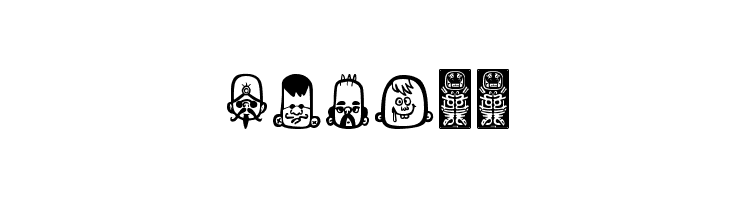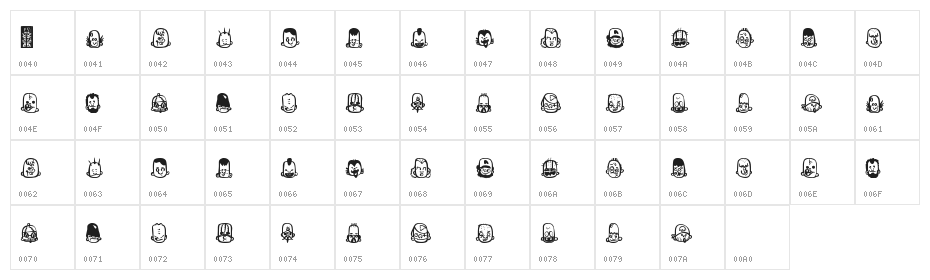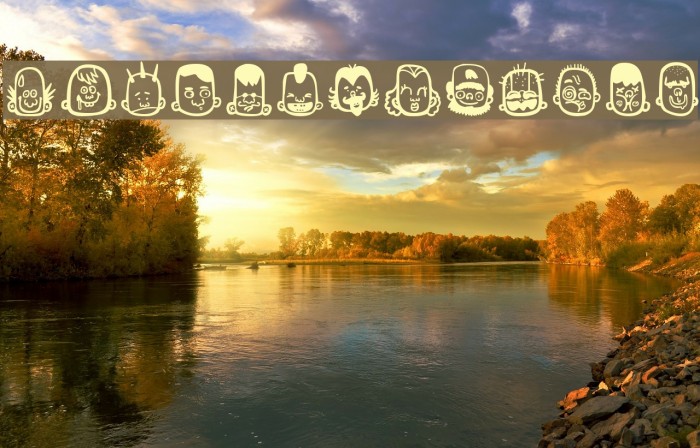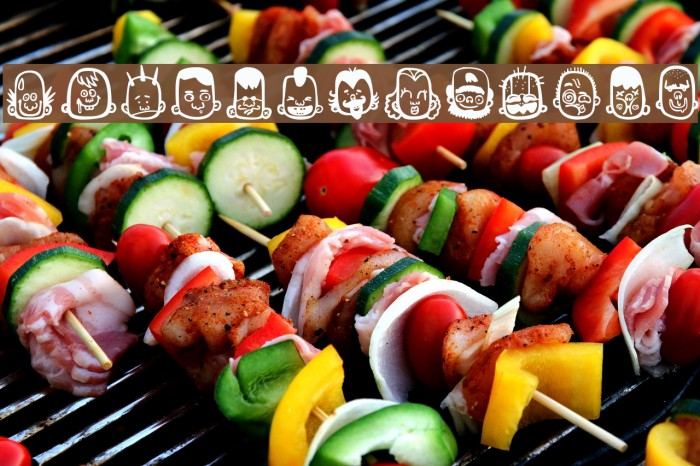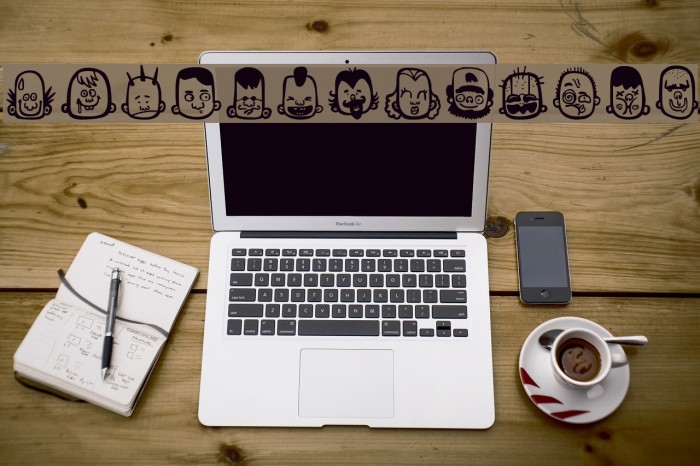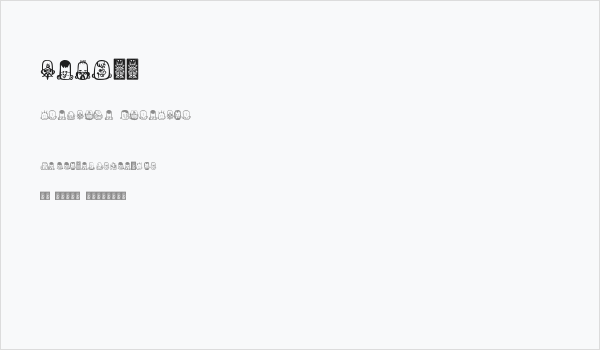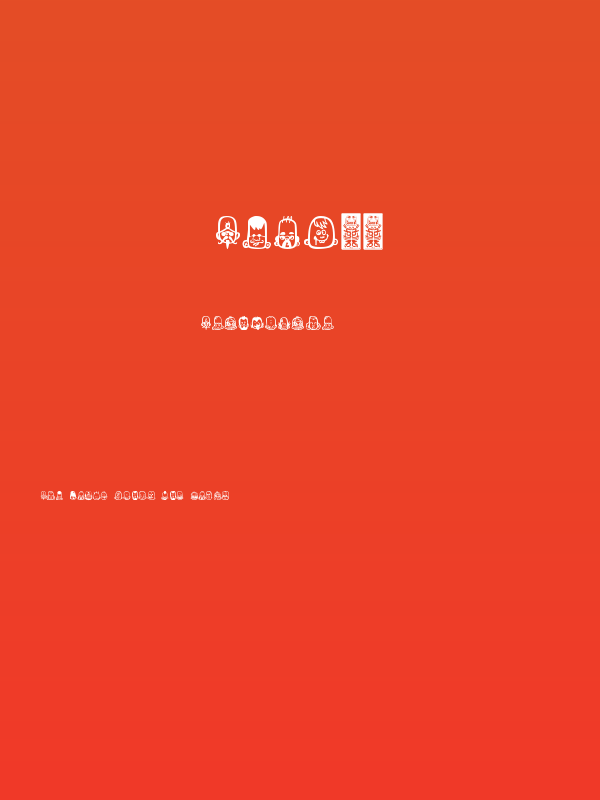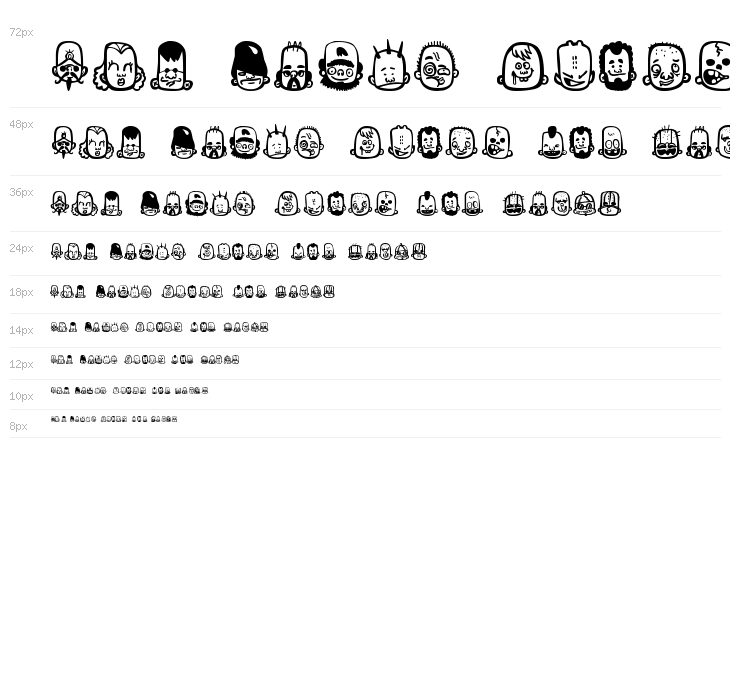
teubé1 Font
teubé1 Description
A highly decorative and playful font composed entirely of unique cartoon-style character faces and abstract totem-like symbols, each glyph representing a different illustrated head or figure. The style is bold, with thick lines and high contrast, and each character is distinct, making it more of a pictogram or dingbat set than a traditional typeface.
| Overall Style | Decorative, Playful, Cartoonish |
| Use Case | Decorative elements, icons, visual storytelling, branding for kids’ products. |
| Proposed Projects | Children’s books, comic strips, party invitations, posters, playful branding, educational materials, stickers. |